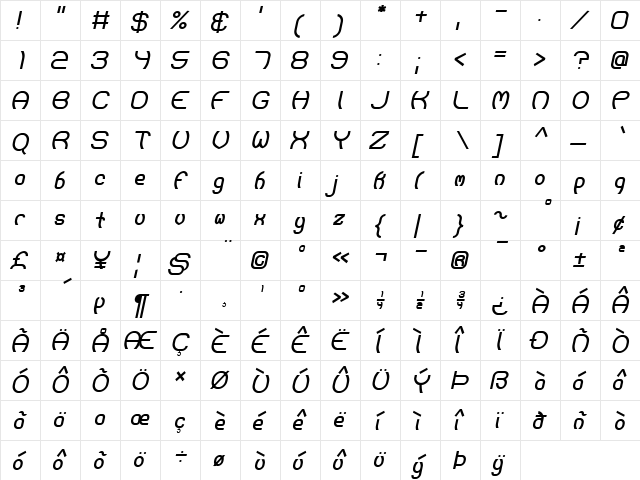
Majistir Italic
Design Context for Majistir Typeface
Majistir takes a measured approach to typography — its balanced proportions and neutral character make it a reliable workhorse for both digital and print work. Its italic angle brings a sense of urgency and motion to the letterforms.
Pro Tip: Use Majistir for emphasis, pull quotes, and subheadings where its slanted energy can add rhythm to the layout.